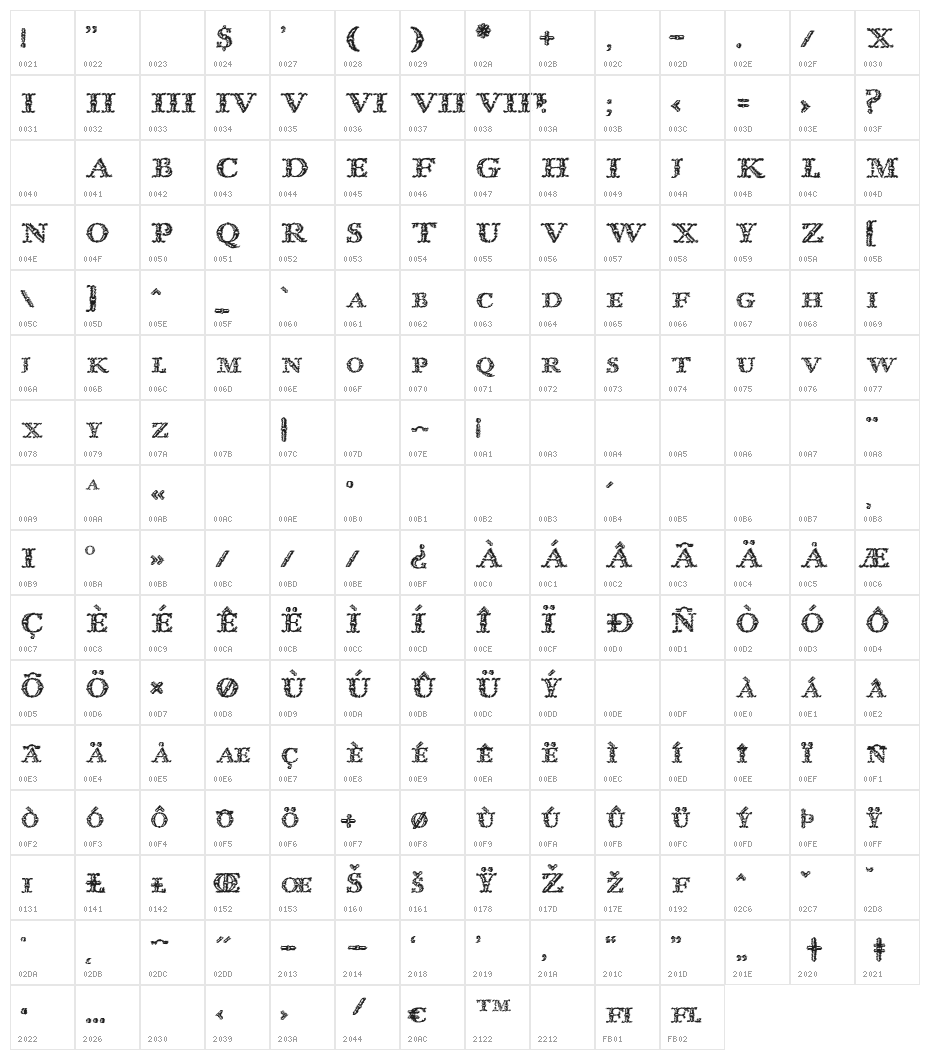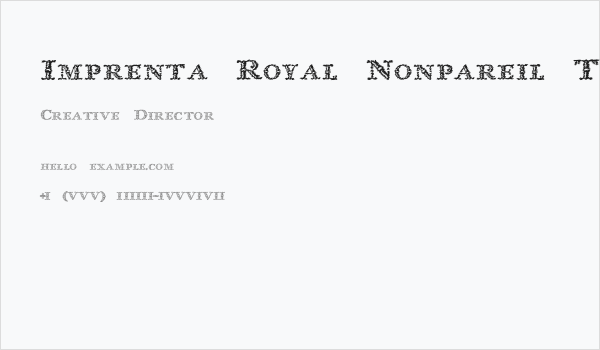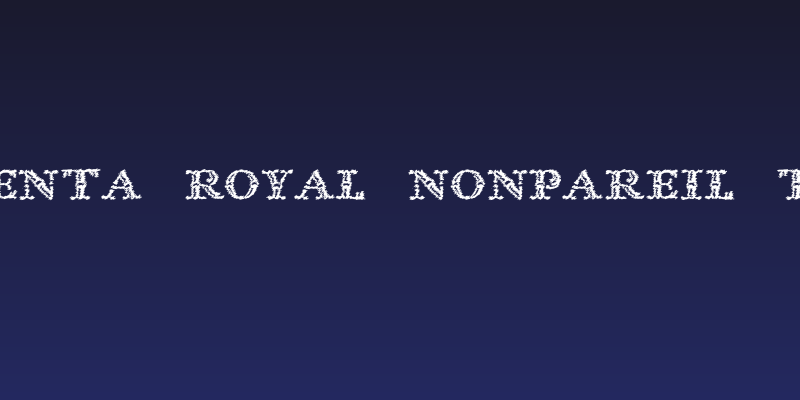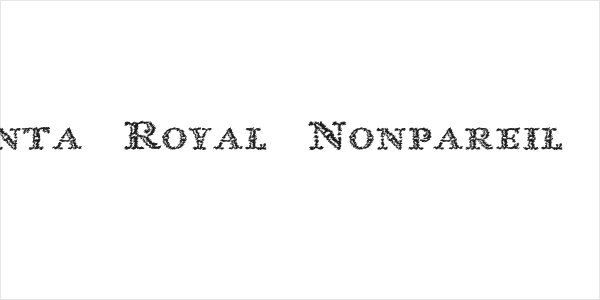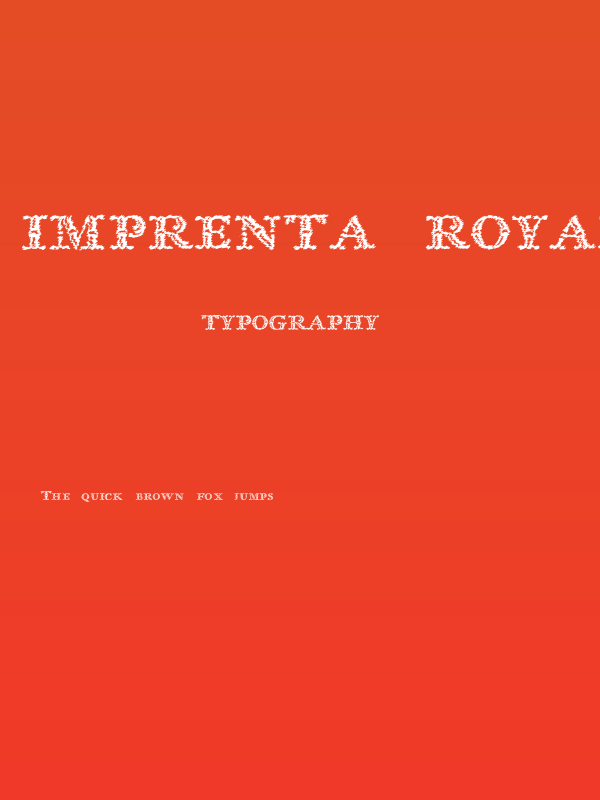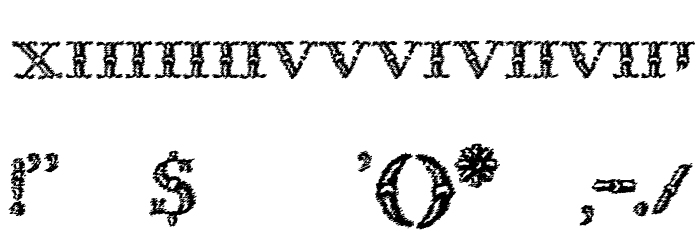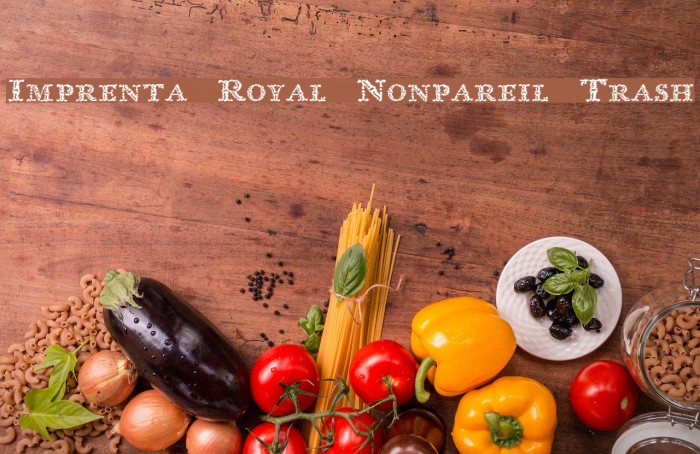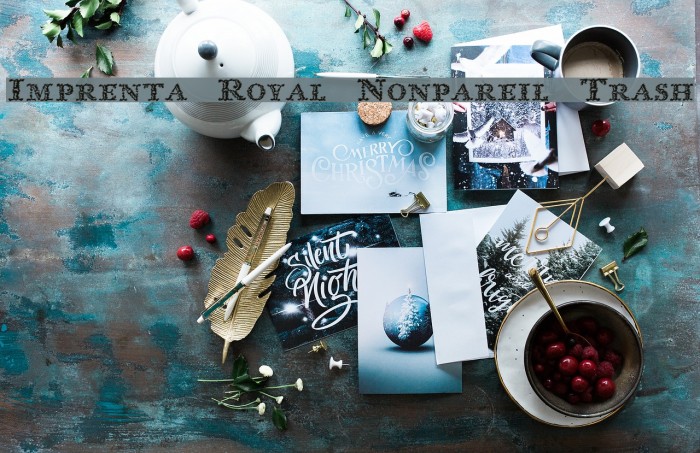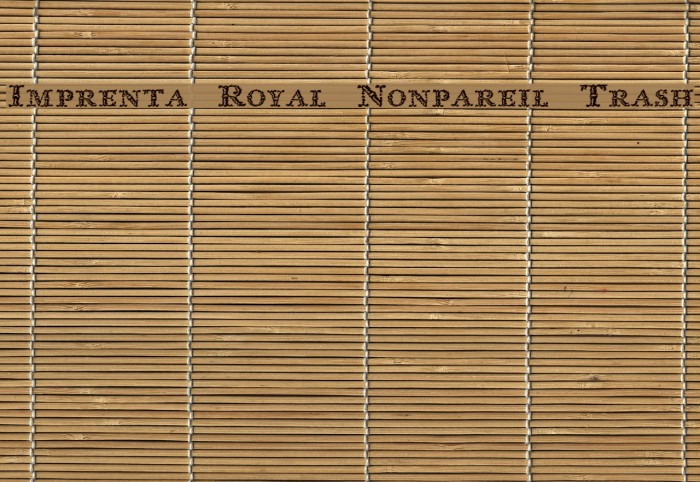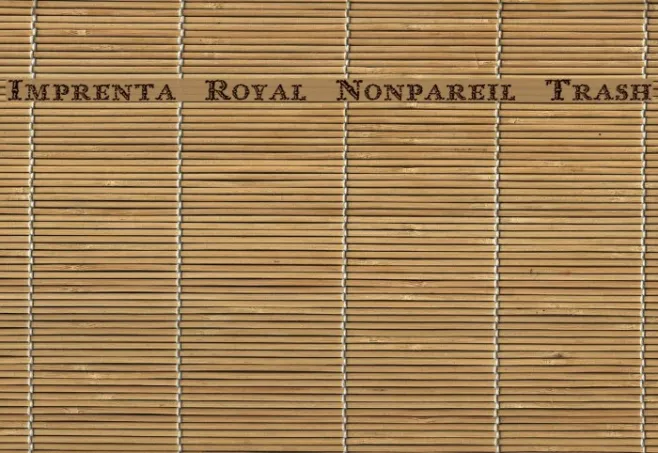
Imprenta Royal Nonpareil Trash Font
Imprenta Royal Nonpareil Trash Description
This font features a distressed, textured appearance that gives it a vintage and worn-out look. The characters are serifed, with each letter exhibiting a unique, rough edge that adds to its antique charm. The uppercase and lowercase letters maintain a consistent style, with the serifs being prominent and slightly exaggerated. The numbers and special characters follow the same distressed pattern, ensuring uniformity across the font. This style evokes a sense of nostalgia and is reminiscent of old printing techniques, making it ideal for projects that aim to capture a historical or retro aesthetic.
| Overall Style | Vintage |
| Use Case | Headlines, Logos, Decorative text |
| Proposed Projects | Ideal for vintage-themed designs, posters, book covers, and branding that seeks a historical or retro feel. |